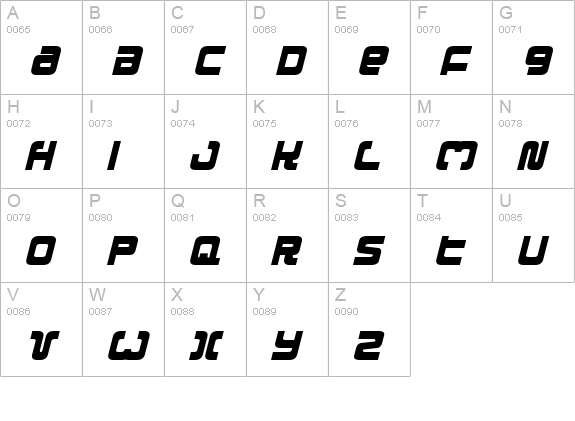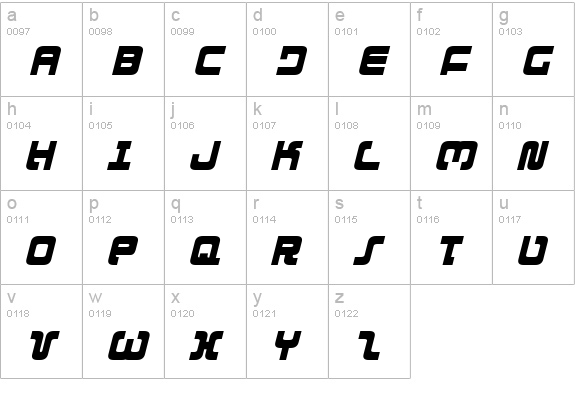
Exedore Condensed Italic is a distinctive, condensed-width, italic variant in the Exedore typeface family \xE2\x80\x94 well suited to design and typography projects.
Exedore Condensed Italic font is a sleek and modern typeface designed for those looking to add a touch of sophistication to their projects. Its elegant curves and sharp angles convey a sense of professionalism and style, making it perfect for use in a wide range of design applications. This font is the perfect choice for branding, advertising, editorial design, and more. The condensed italic style adds a sense of dynamism and movement to your text, making it stand out and capture attention. And the best part? Exedore Condensed Italic font is available for free download at FontsMarket.com. So you can elevate your designs without breaking the bank. Don't miss out on this fantastic opportunity to enhance your creative projects with this stylish and versatile font.